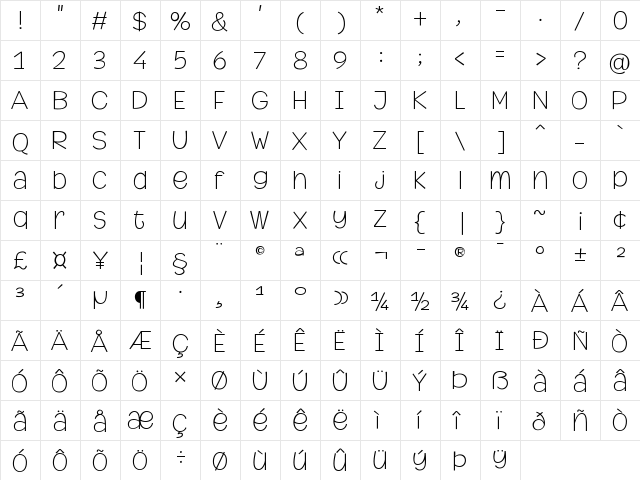
Watermelon Family Thin
| Foundry | Darwin Huayan Harahap |
| Designer | Darwinoo |
Design Context for Watermelon Family Typeface
Watermelon Family offers clean, dependable letterforms without strong stylistic allegiance, making it a practical choice for designers who need flexibility. The delicate stroke weight brings airiness and refinement to layouts.